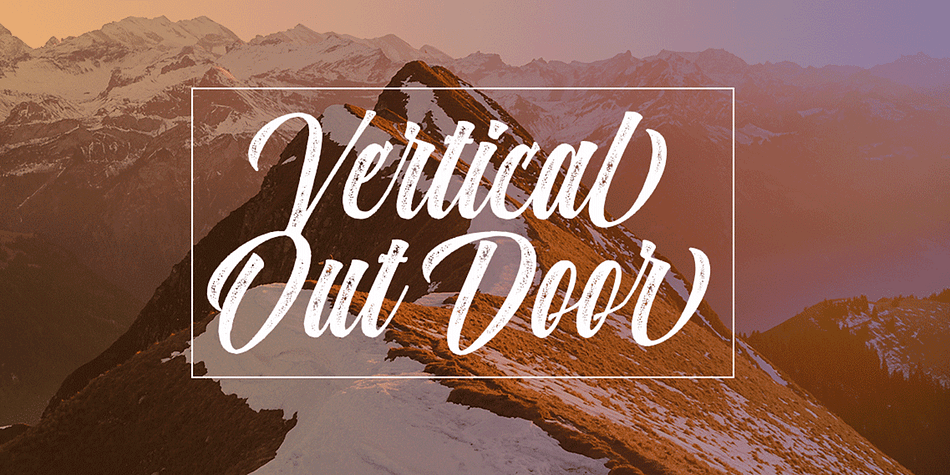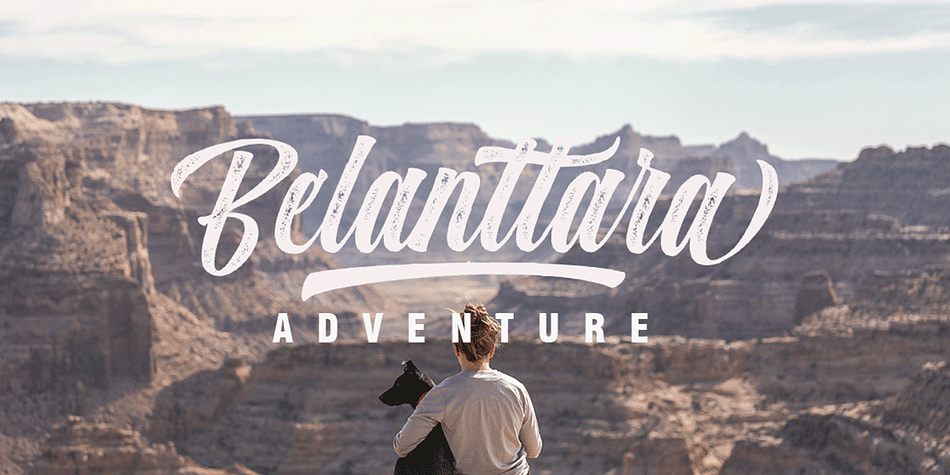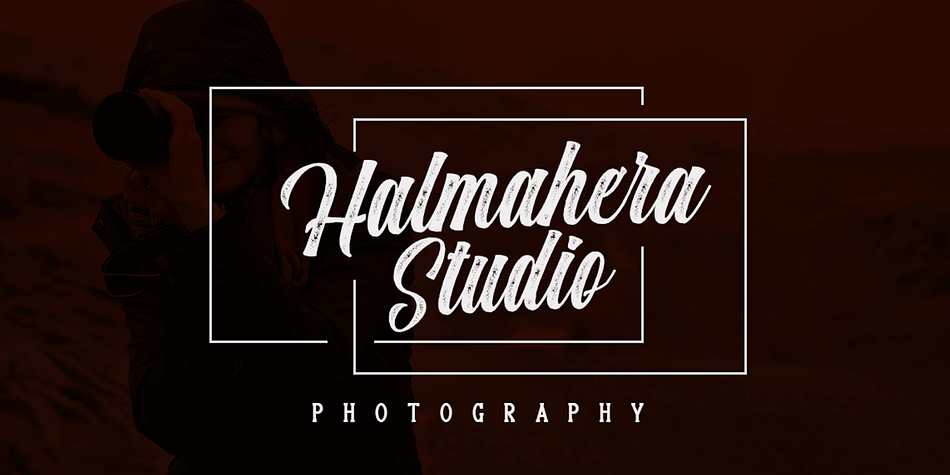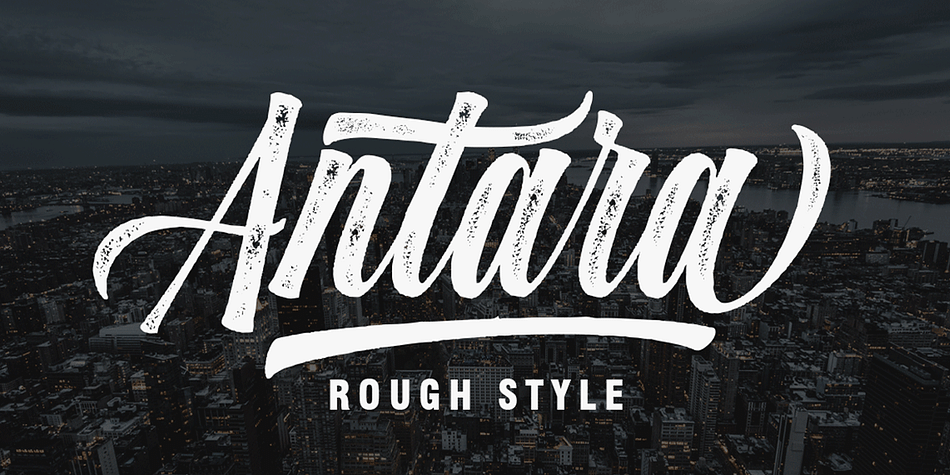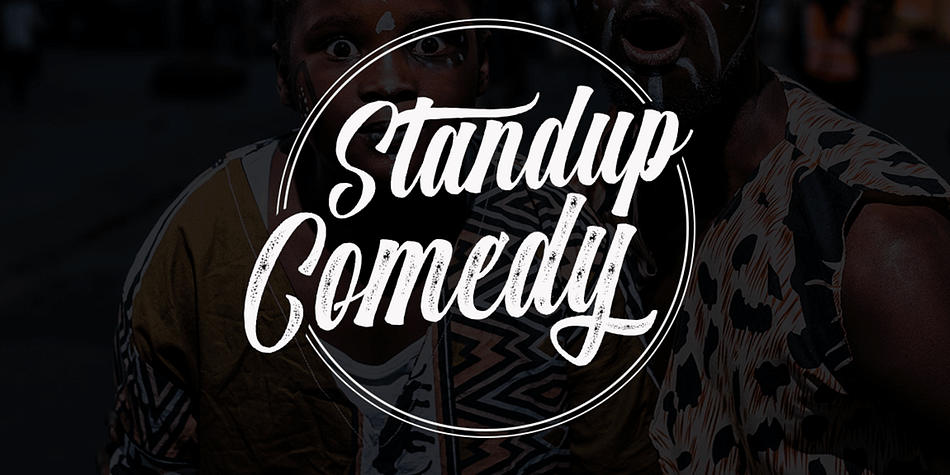
Antara is a brush script font family. This typeface has three styles and was published by Groens.
Antara is 3 style fonts, so, brush script that is beautiful and unique,
it is a model of modern calligraphy typefaces, in combination with a calligraphy writing style.